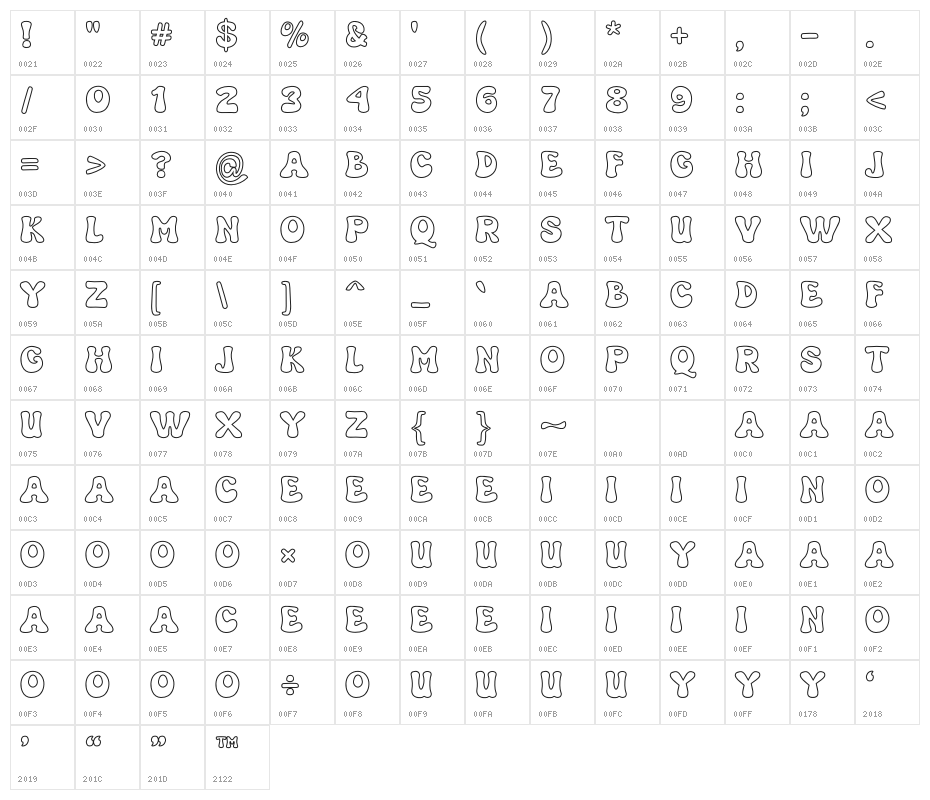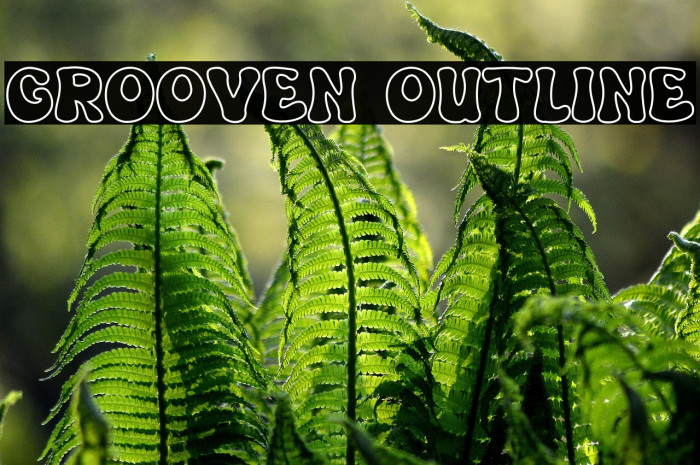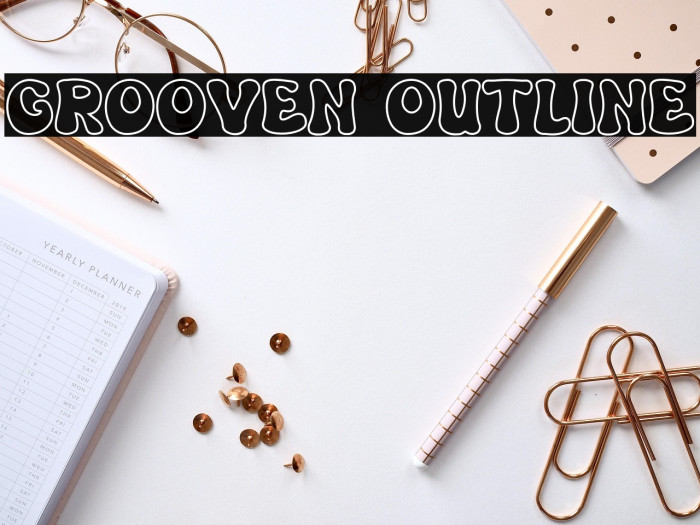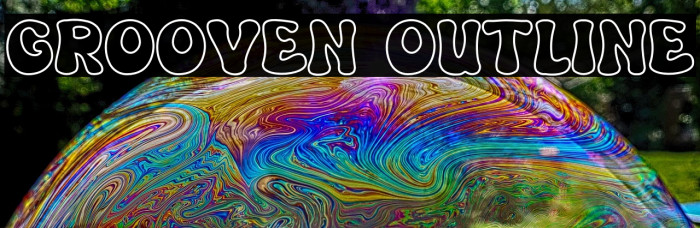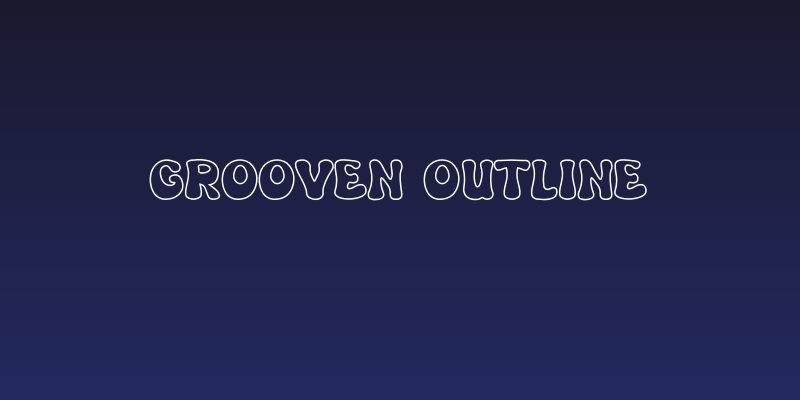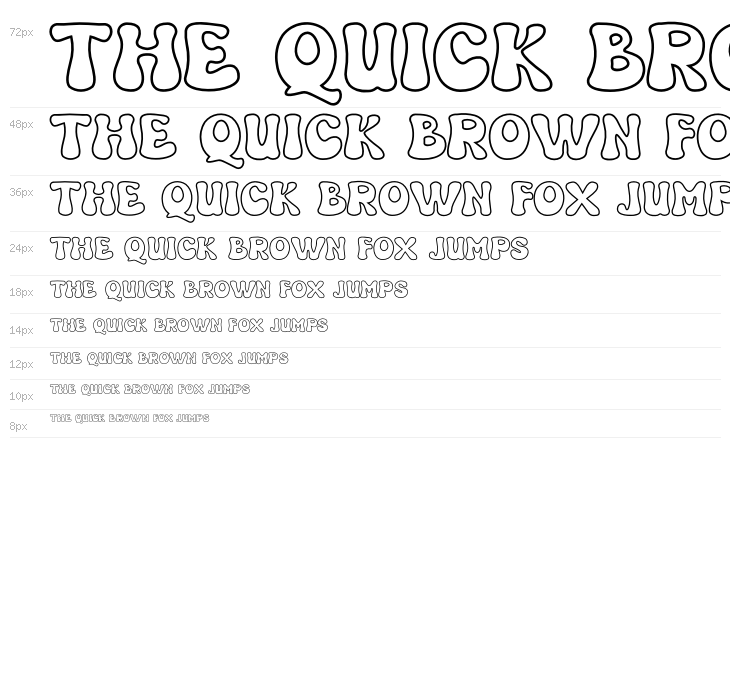
Grooven Outline Font
Grooven Outline Description
This playful and bold font features a unique outline style that gives it a distinctive, eye-catching appearance. The characters are rounded and bubbly, exuding a sense of fun and creativity. Each letter is crafted with a consistent outline thickness, providing a cohesive look across the entire set. The font's whimsical nature makes it ideal for projects that require a touch of personality and flair. Its clear and legible design ensures that it stands out in both digital and print media.
| Proposed Projects | Ideal for children's books, party invitations, posters, and branding that requires a fun and lively touch. |